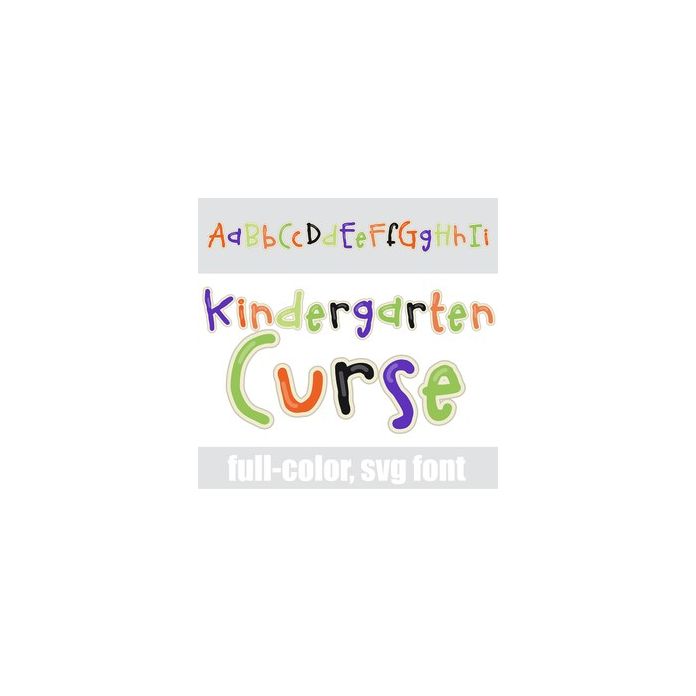
This full-color font is a very youthful print in a Halloween color palette. There is an alt case w/ additional colors you can access through your system or Silhouette's glyph map.